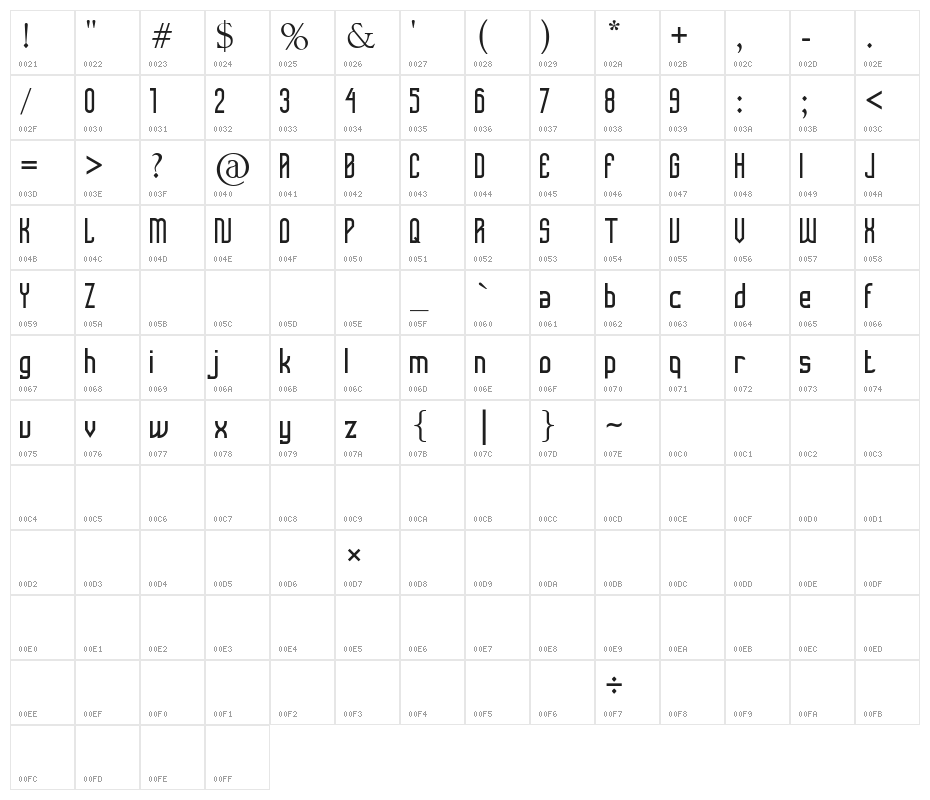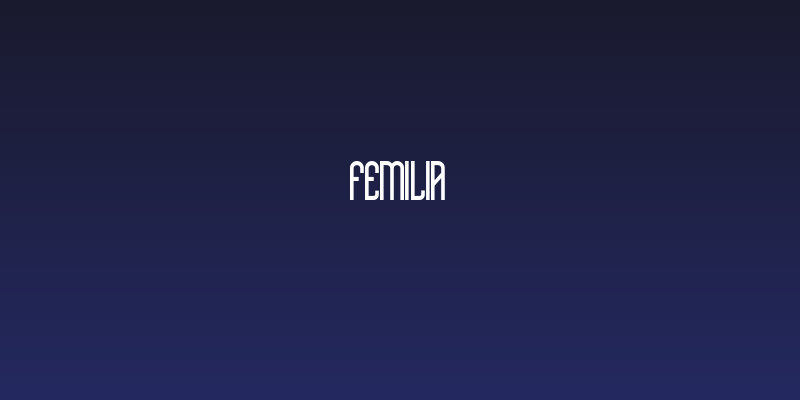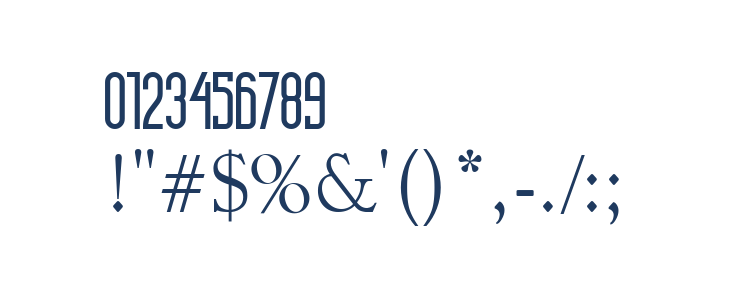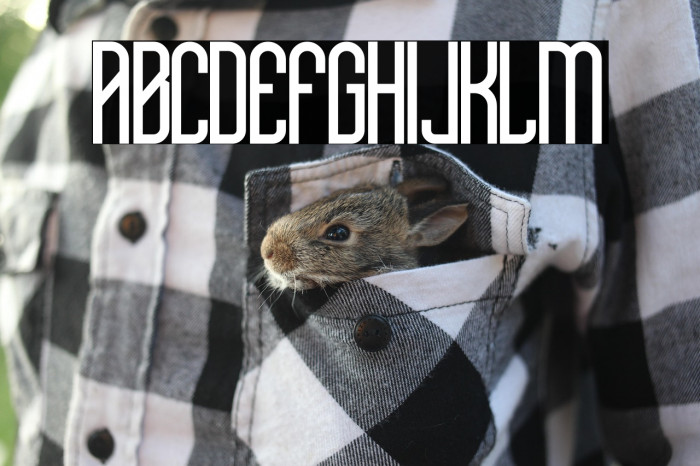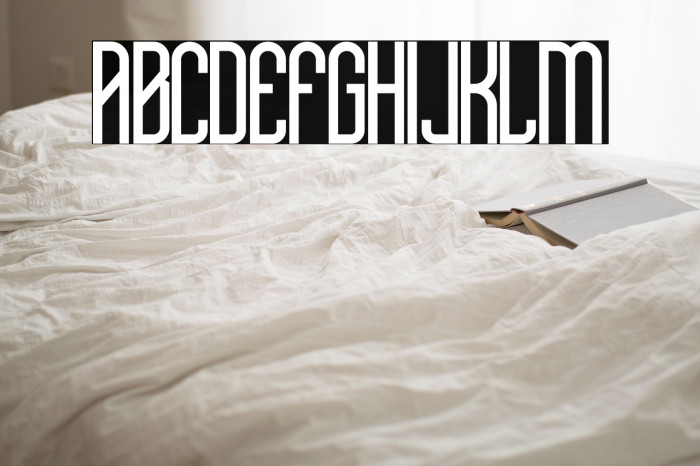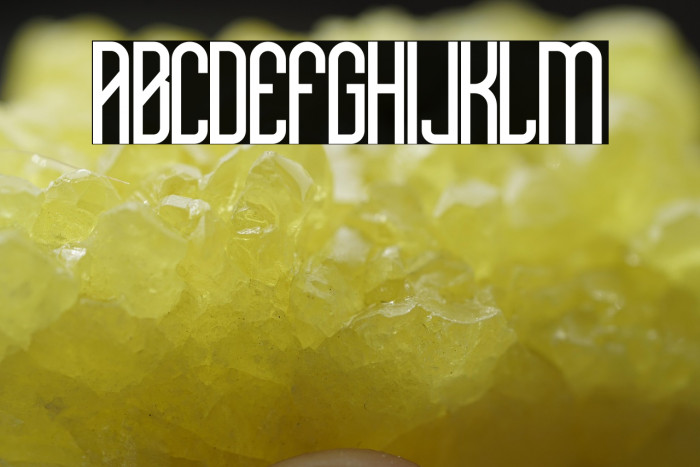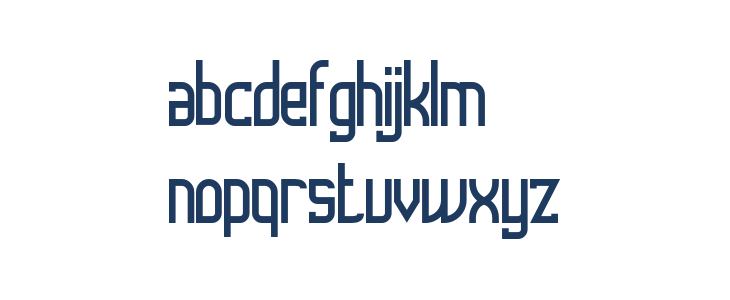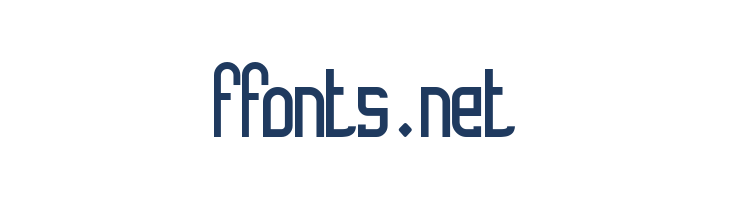
Femilia Font
Femilia Description
This font features a modern and geometric design with clean, straight lines and a uniform stroke width. The characters are tall and narrow, giving a condensed appearance that is both sleek and stylish. The uppercase letters are particularly striking, with unique angular elements that add a touch of sophistication. The lowercase letters maintain the same geometric style, ensuring consistency throughout the typeface. The numerals are clear and easy to read, complementing the overall design. Special characters are included, matching the font's aesthetic with their bold and distinctive shapes.
FEMILIA UPPERCASE
FEMILIA LOWERCASE
FEMILIA OTHER CHARS